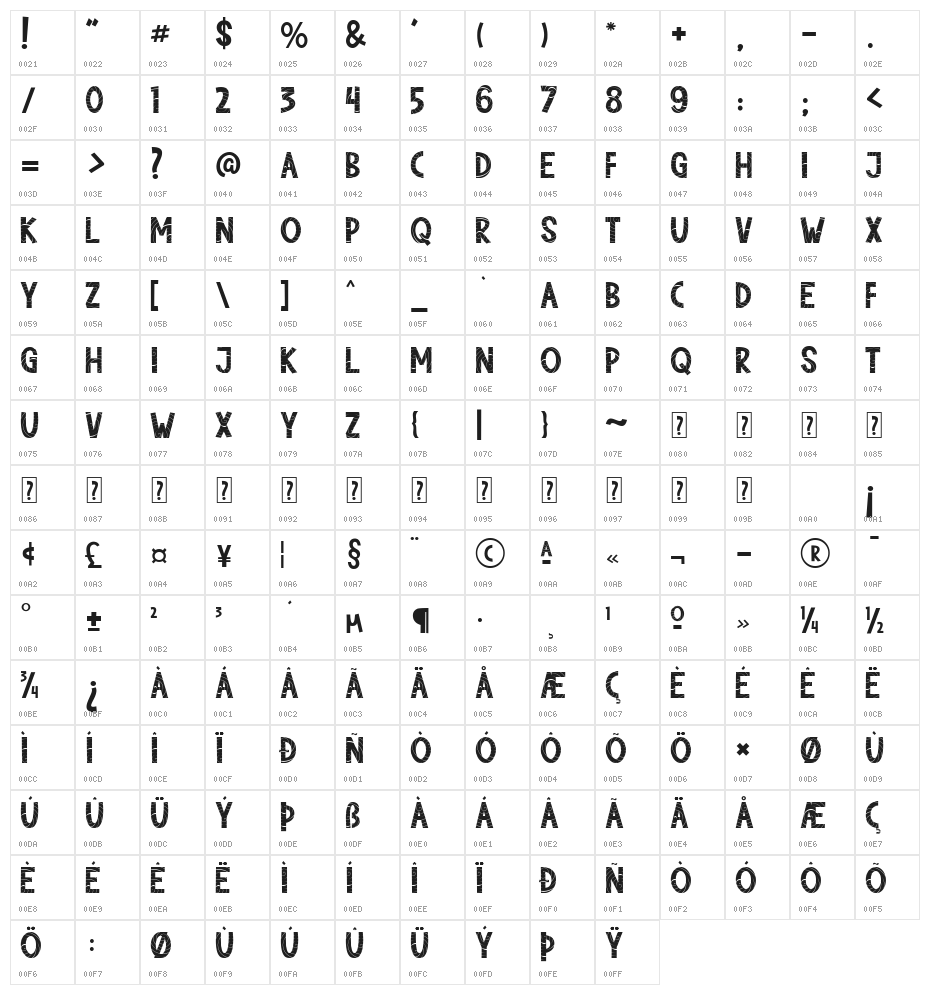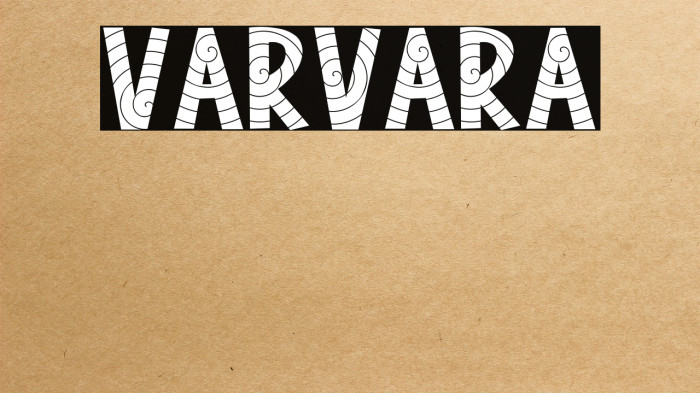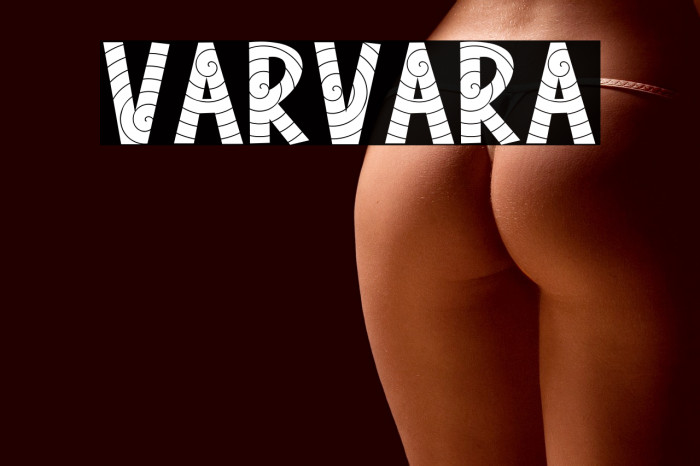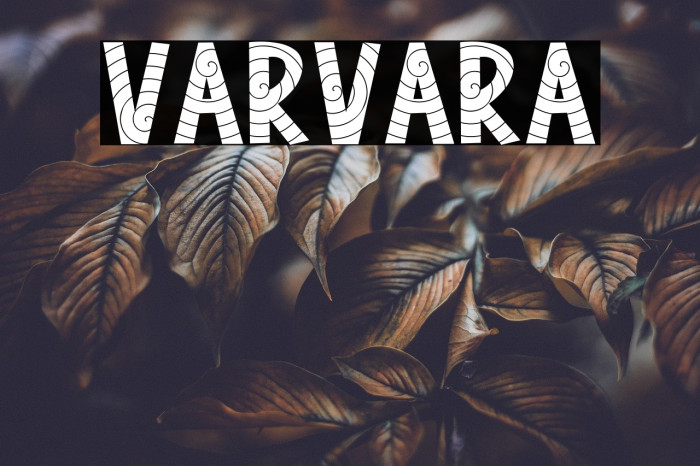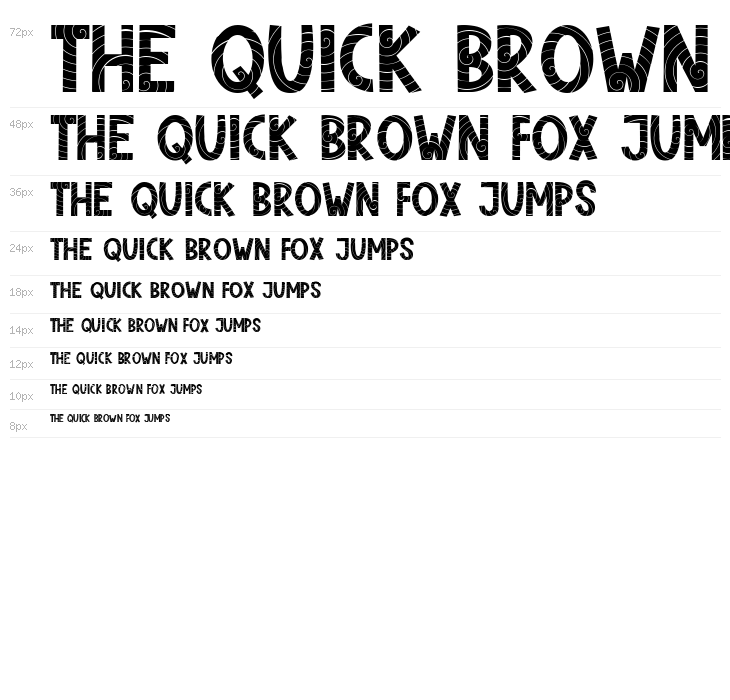
Varvara Font
Varvara Description
This font features a bold and decorative style with intricate swirl patterns embedded within each character. The uppercase and lowercase letters, along with numbers and special characters, exhibit a consistent design that combines a modern aesthetic with a touch of artistic flair. The swirling elements add a sense of movement and creativity, making it stand out as a unique display typeface. The boldness of the characters ensures high visibility, while the decorative patterns provide an eye-catching detail that is perfect for artistic projects.
| Proposed Projects | Ideal for creative projects such as posters, invitations, branding, and any design requiring a standout decorative typeface. |